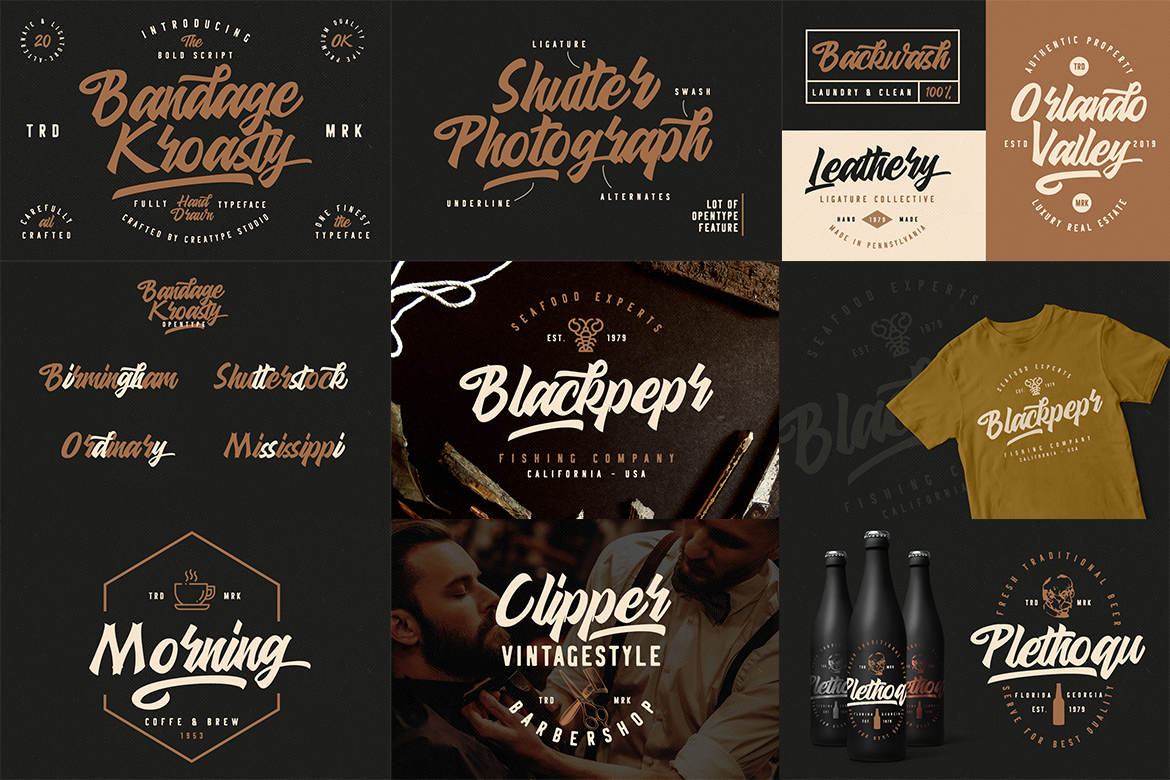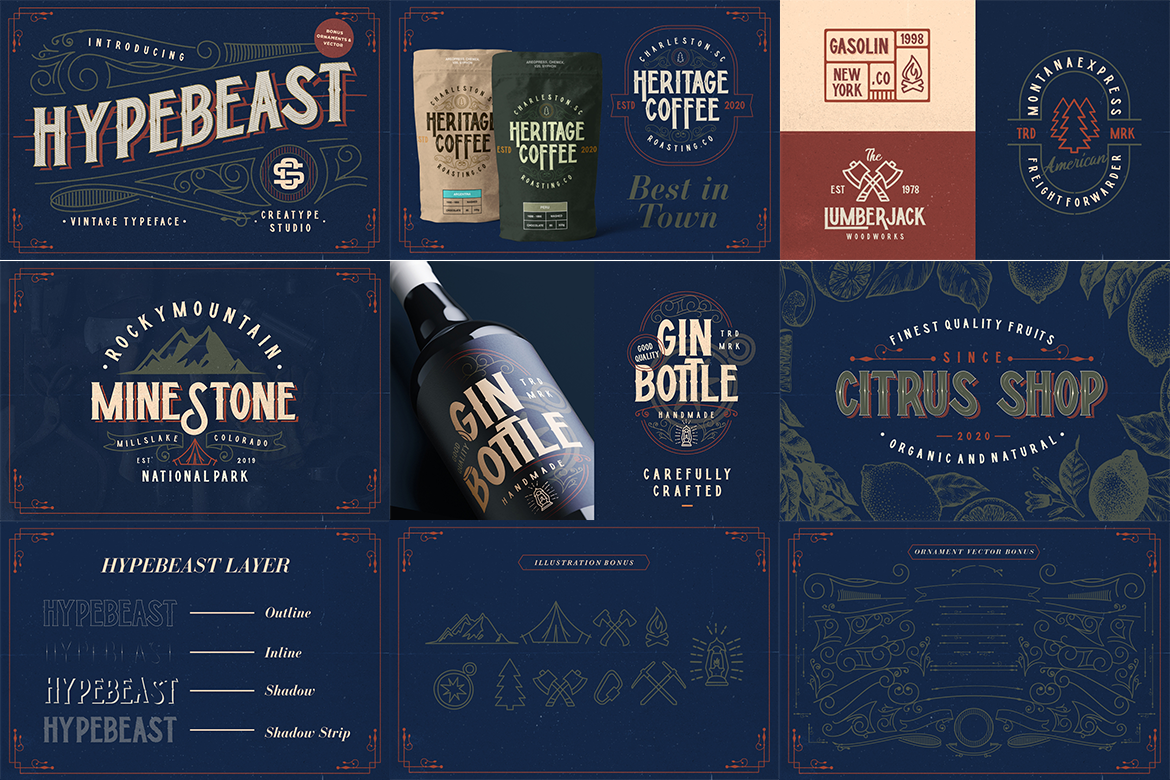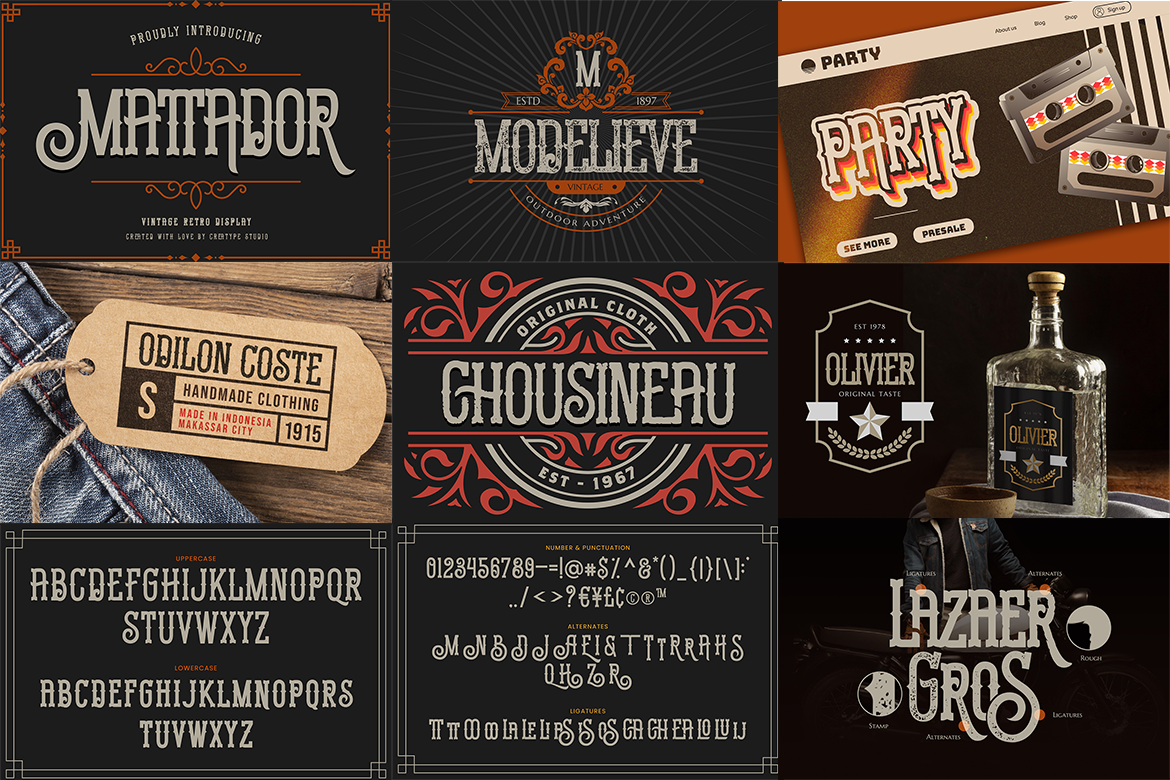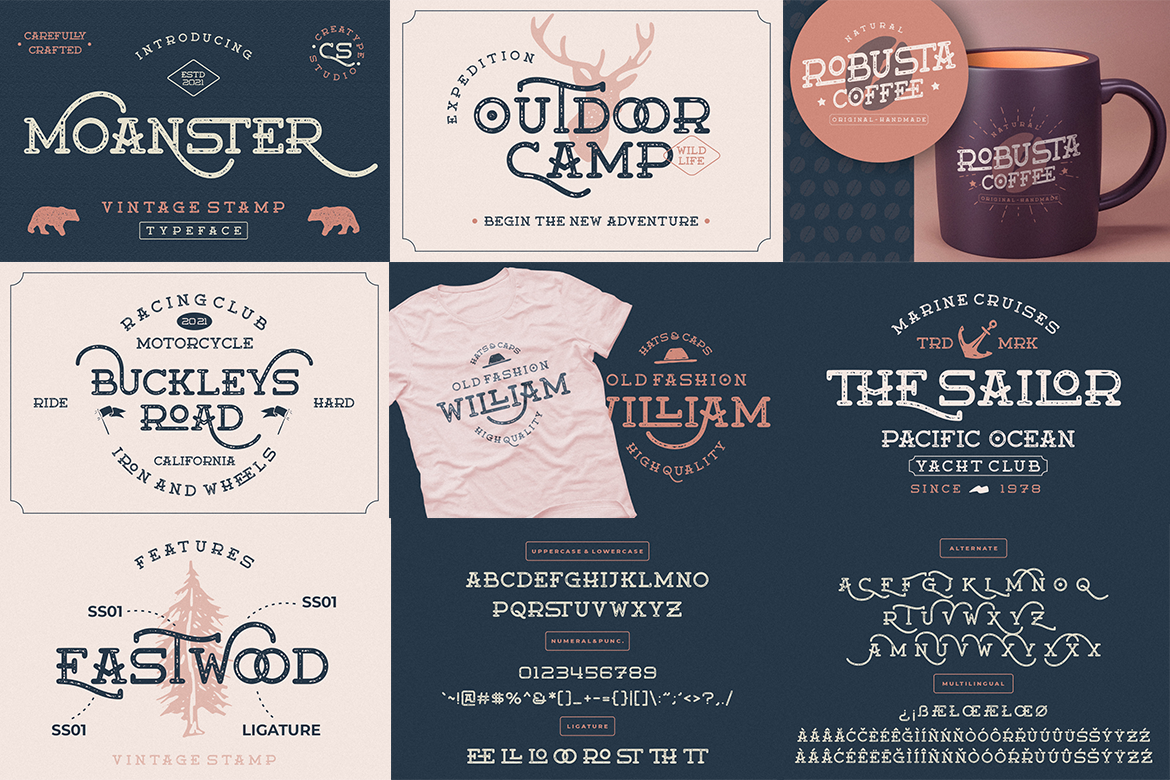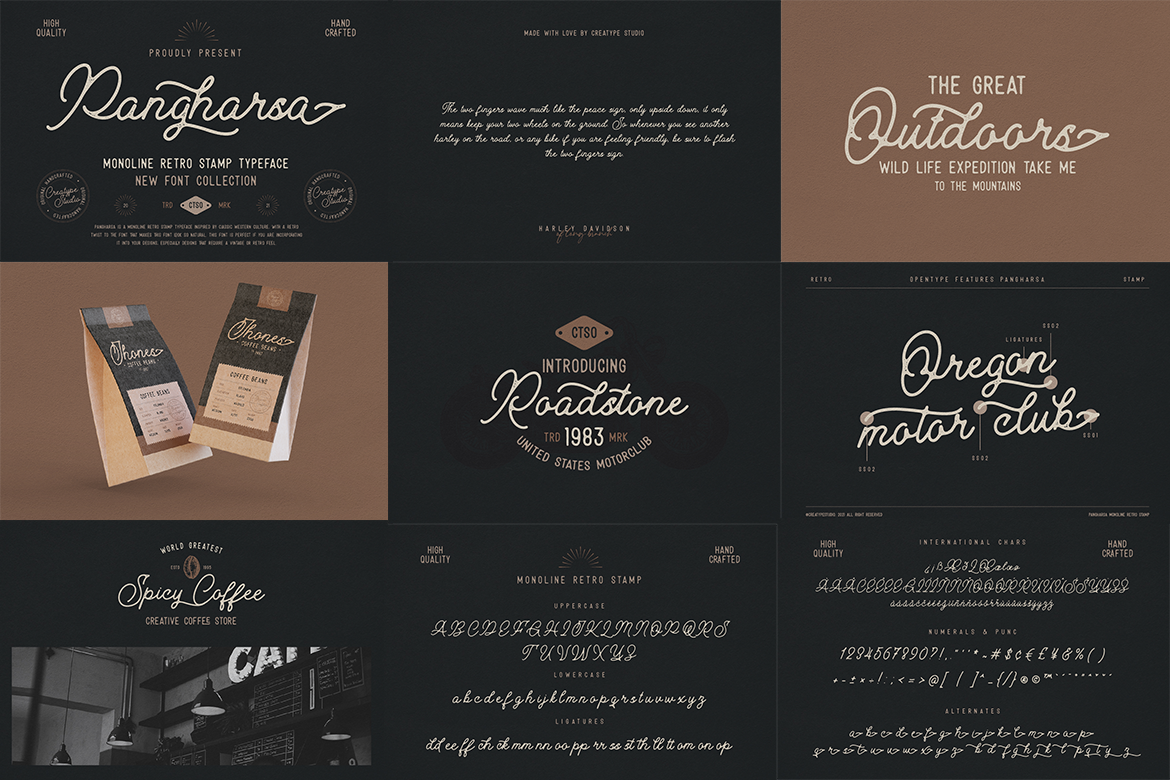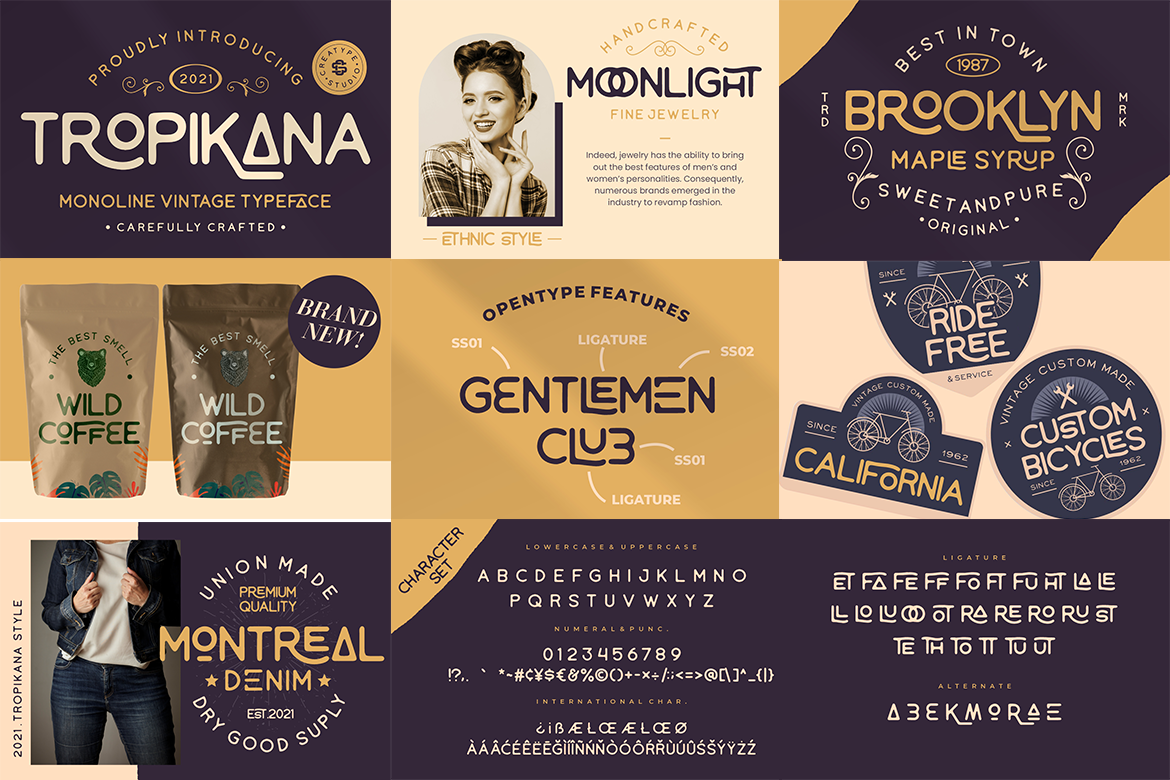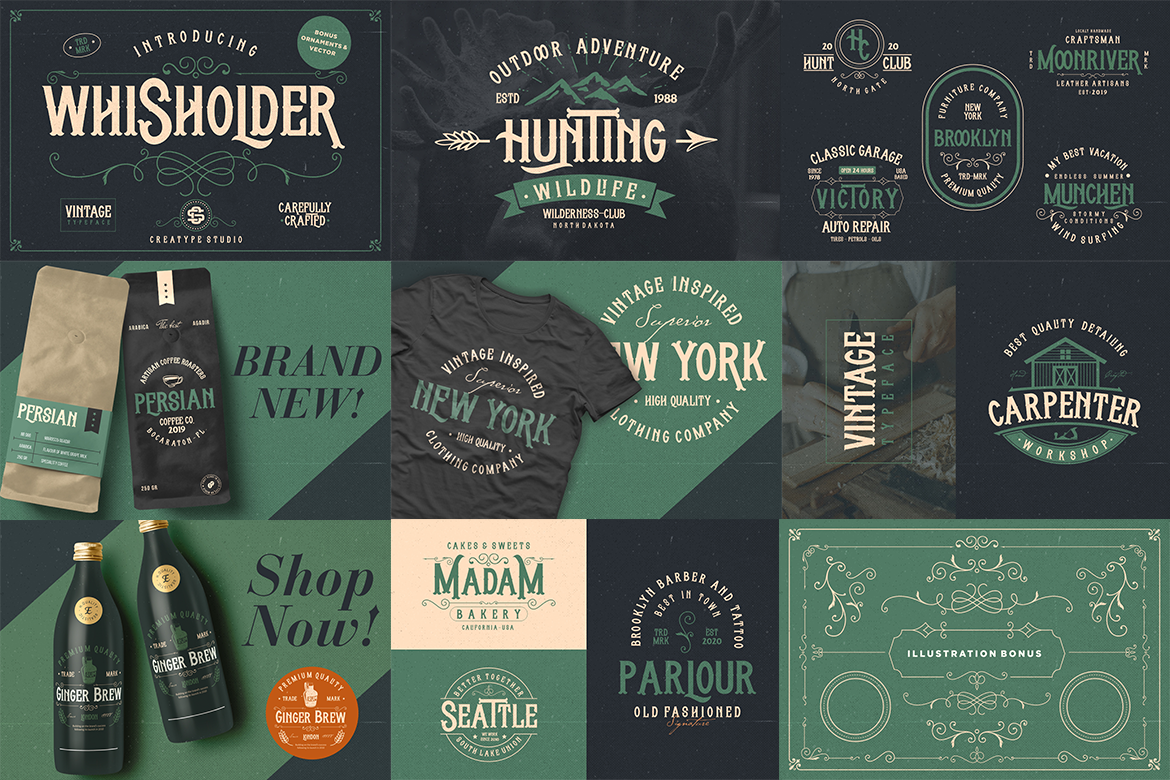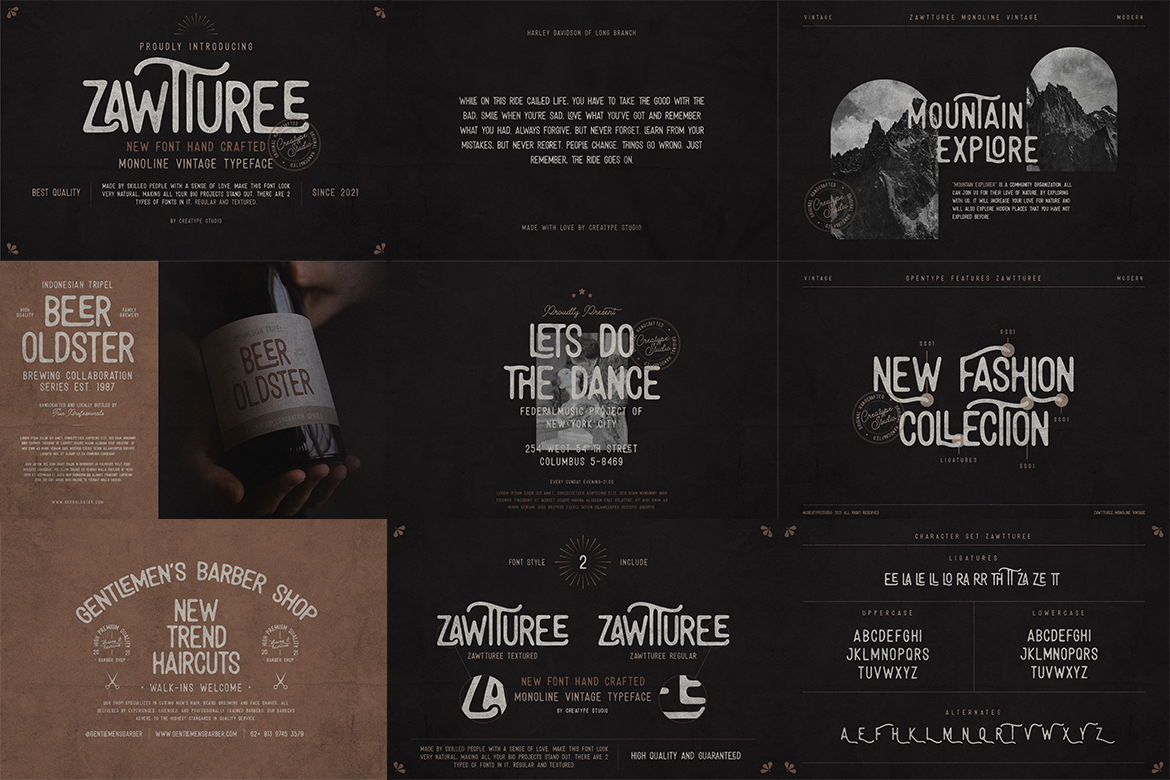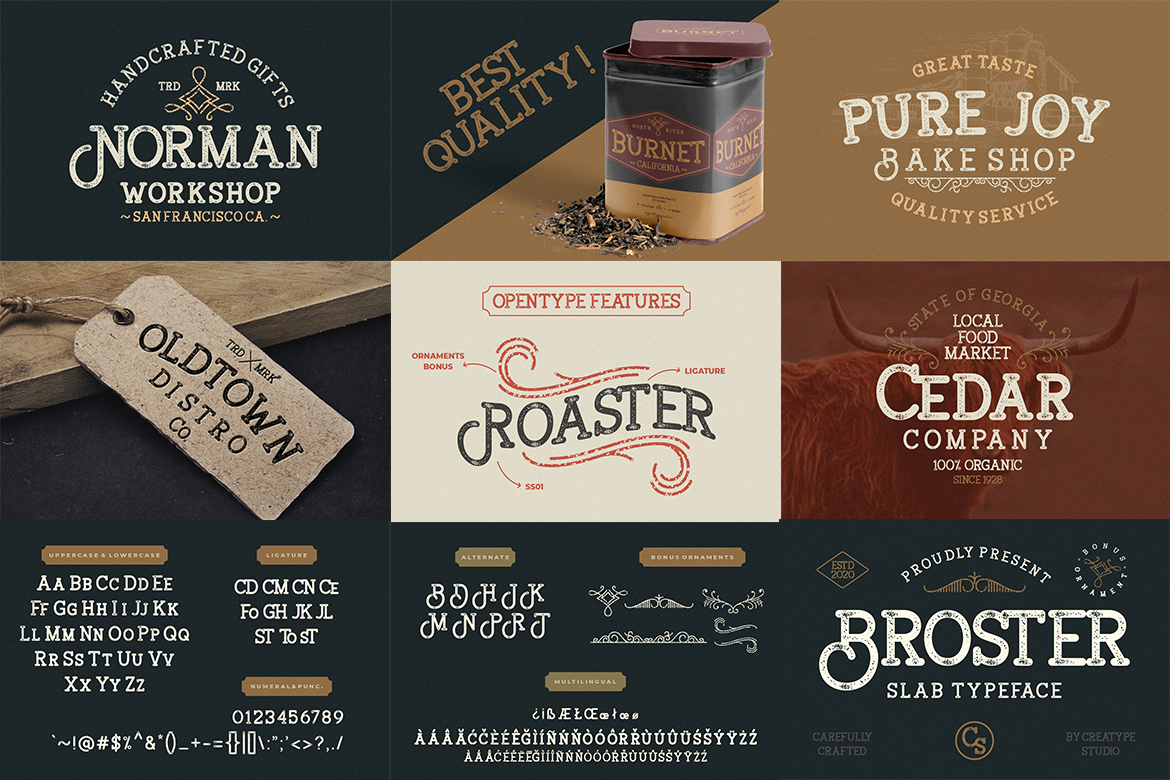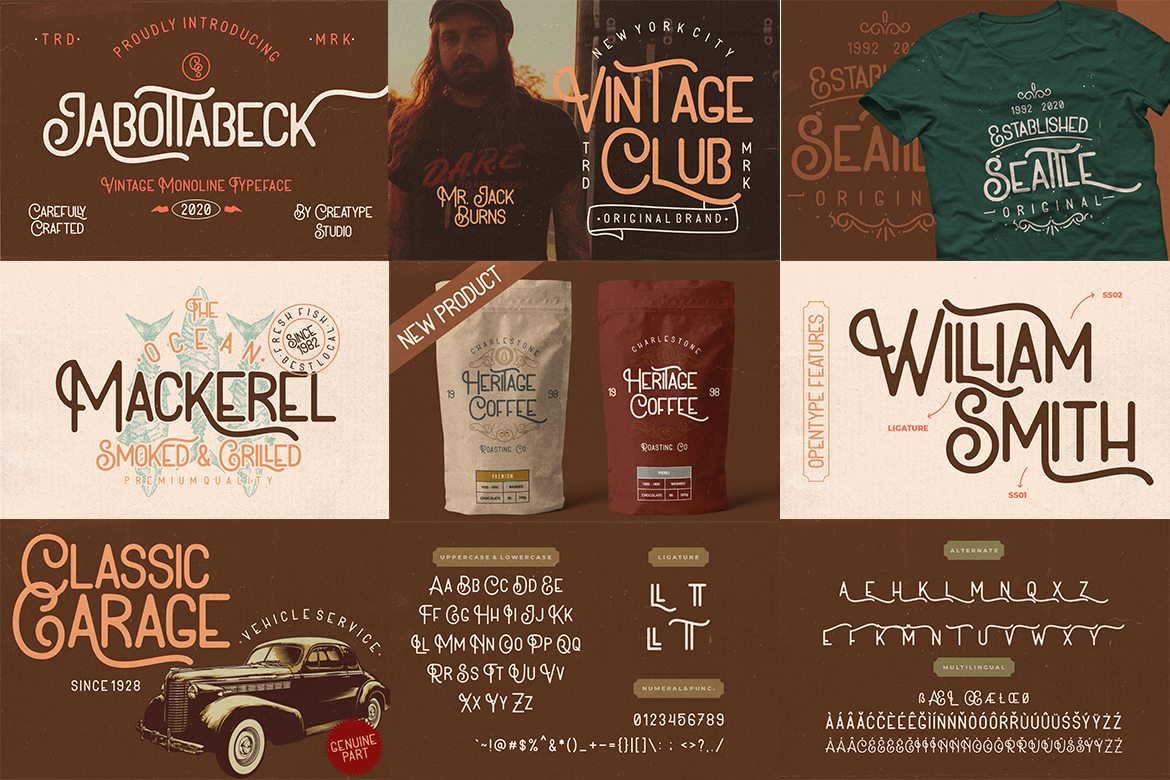
12 Vintage Style Fonts: A Designer’s Secret Weapon
Thinking about a vintage touch design? Vintage style fonts are the magical bridge to unlock the history vibe timelessly. With a unique old touch, your graphic artwork can be a good legacy of amazing vintage styles to draw bygone eras through fairy words.
From Bandage Kroasty Script to Zawtturee Monoline Vintage, here are the top 12 glorious fonts from our studio to consider. Let’s delve into the perfect-of-world vintage typeface below!
Top 12 Selection of Vintage Style Fonts for Evergreen Designs
The following vintage typefaces could bring better engagement and experience to your audience, keeping a personal intimacy of your brand.
1. Bandage Kroasty Script
If you’re looking for a handwritten feel design, Bandage is a set of vintage-style fonts with a natural hand-lettering dynamic. It seems bold and hefty with a modern aesthetic, allowing you to catch attention instantly.
2. Broster Slab Typeface
Introducing Broster Slab, the perfect Sans Serif family character! The flowing uppercase and lowercase with textured canvas dots in superb aesthetics. Plus, the stamped looks and bonus ornaments bring a meticulous pinch of 1900s vibe for product designs, logos, or ad design projects.
3. Hypebeast-Layered & Vintage Font
Hypebeast pursues the golden era of 80’s graphic design with its Victorian style. This vintage font has a chunky weight that captures the layered texture with decorative ornaments. You should use this font for branding, labels, or photography design projects!
4. Jabottabeck Vintage Monoline
Right out of the monoline-glowing, Jabottabeck brooks your artwork an incomparable throwback edge. It comes with alternates’ long wavy strokes and exaggerated curl lines in uppercase and lowercase, allowing you to match letters to create distinctive display designs with retro handwriting font style.
5. Mattador Vintage Retro Display
Mattador conceives the rough shapes and loops of vintage bicycles at the letters’ edges. Effortlessly fusing the retro display with a few stamp alternates and quirky ligatures, there’s a whole nostalgic era for modern artworks. Unlike other vintage fonts, it’s highly creative and has legible flair, as each glyph is carefully handcrafted.
6. Moanster Vintage Stamp
Are you keen on wildlife projects? This groovy serif lettering alphabet features the natural breath for mind-blowing fonts. By boosting the bold strokes and snappy curves with brush textures, Moanster is just like the impeccable canvas in the air that works magic for various types of design projects.
7. Pangharsa Monoline Retro Stamp
This vintage cursive font is all the rage! With slim curls and a whole lot of international character, Pangharsa is a sophisticated paid typeface. Whilst it looks simple, Pangharsa sticks out the classic Western culture at one go.
8. Rampage Monoline Script
If you’re opting for a retro-chic affair, Rampage Monoline Script is worth trying. If you use the rounded shape alternate of this vintage script font , it will create a strong visual impact for your logos, wedding designs, product labels and packaging, and other kinds of design projects you’re handling.
9. Rontrelan Monoline Vintage
Another adventure cruise typeface, Rontrelan delivers a lively touch to an eye-catching project. It’s a thick and rough monoline script for any playful and dynamic retro-twist presence.
10. Tropikana Monoline Vintage Typeface
For a summer elegance, Tropikana is your go-to option. Its slightly condensed letter and peculiar ligatures truly blend a nostalgic feel for a laid-back festival or music event designs. Its ethnic charm and edgy touch are also good for branding posters.
11. Whisholder Vintage Retro Typeface
Need versatile vintage fonts for a Victorian touch? Whisholder can best suit your needs as it embodies the antique style with solid strokes and clean looks in it. Thus, it is a perfect bet for any watermark, logo, label, and invitation designs as well.
12. Zawtturee Monoline Vintage
Compared to others, Zawtturee is less ornate but comes in regular and textured versions. With its long bumpy ligatures and alternates, this font truly catches the readers’ attention effortlessly.
Collect More Vintage Style Fonts With Creatype Studio!
In essence, the swanky retro typefaces above act as treasure links bringing the past forward. If you’re keen to expand your collection, pick Creatype Studio’s vintage typeface bundle. Besides the Serif font family, we offer numerous versions of Sans Serif, Script, or even bold display lettering.